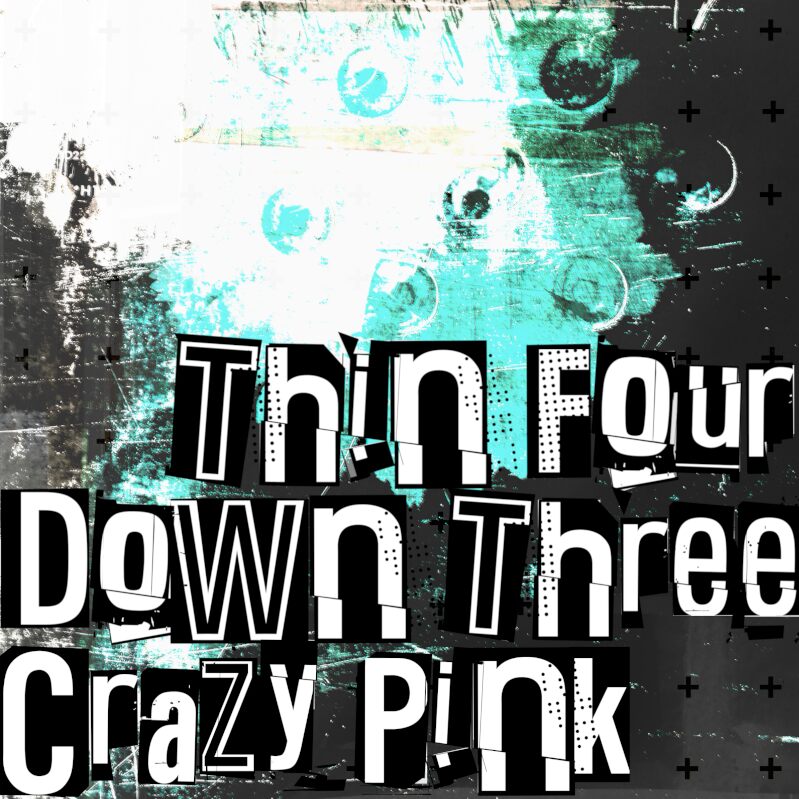
Thin Four Down Three Crazy Pink Zero font by Juha Korhonen is a free distorted negative display font. Built around the unique trick of reverse-out strokes, its letters read as hairline tunnels carved from black, creating a jittery, barcode-like rhythm. The Thin Four Down Three Crazy Pink family squeezes forms tight, with wavering edges and flickery contrast that feels equal parts photocopy and strobe light-abrasive, energetic, impossible to ignore.
Using Thin Four Down Three Crazy Pink Zero, headlines snap with electric tension. This free font shines on glitch posters, underground flyers, horror titles, rave/club promos, noisy album covers, and experimental zines. Run it big to keep the spindly inlines crisp, and pair with a calm grotesk for body copy to ground the chaos.